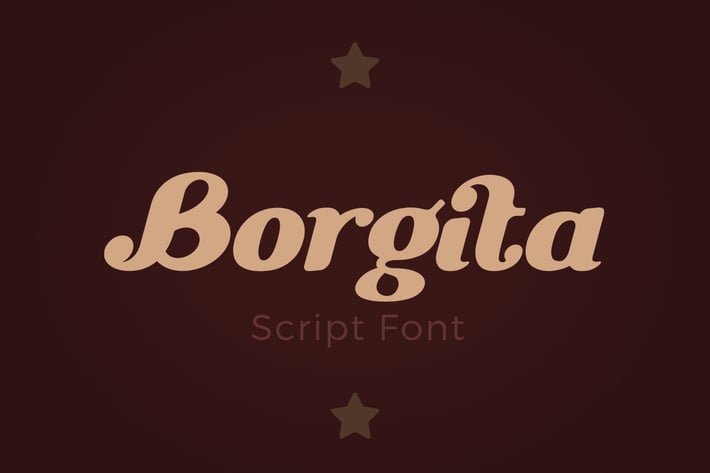
Borgita Italic Script Calligraphic Font
Borgita is calligraphic italic script font made to create trendy Good-looking Lettering logos & compositions.